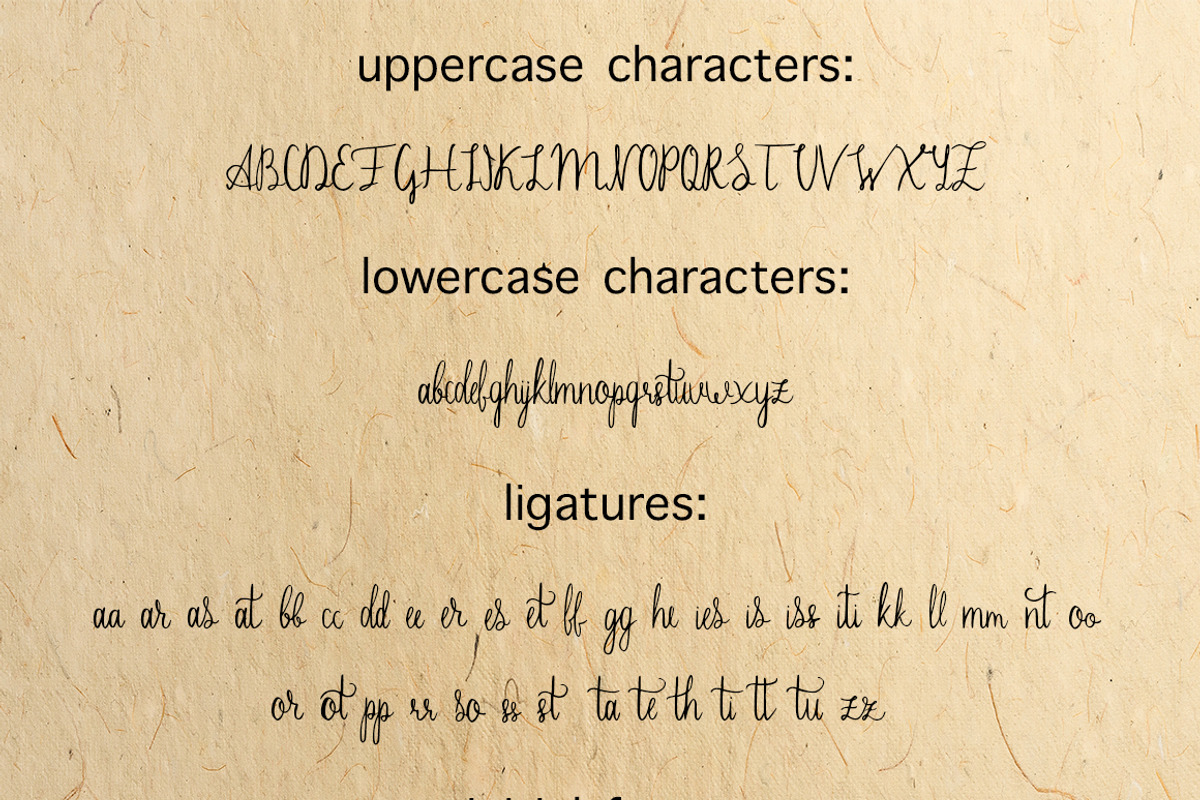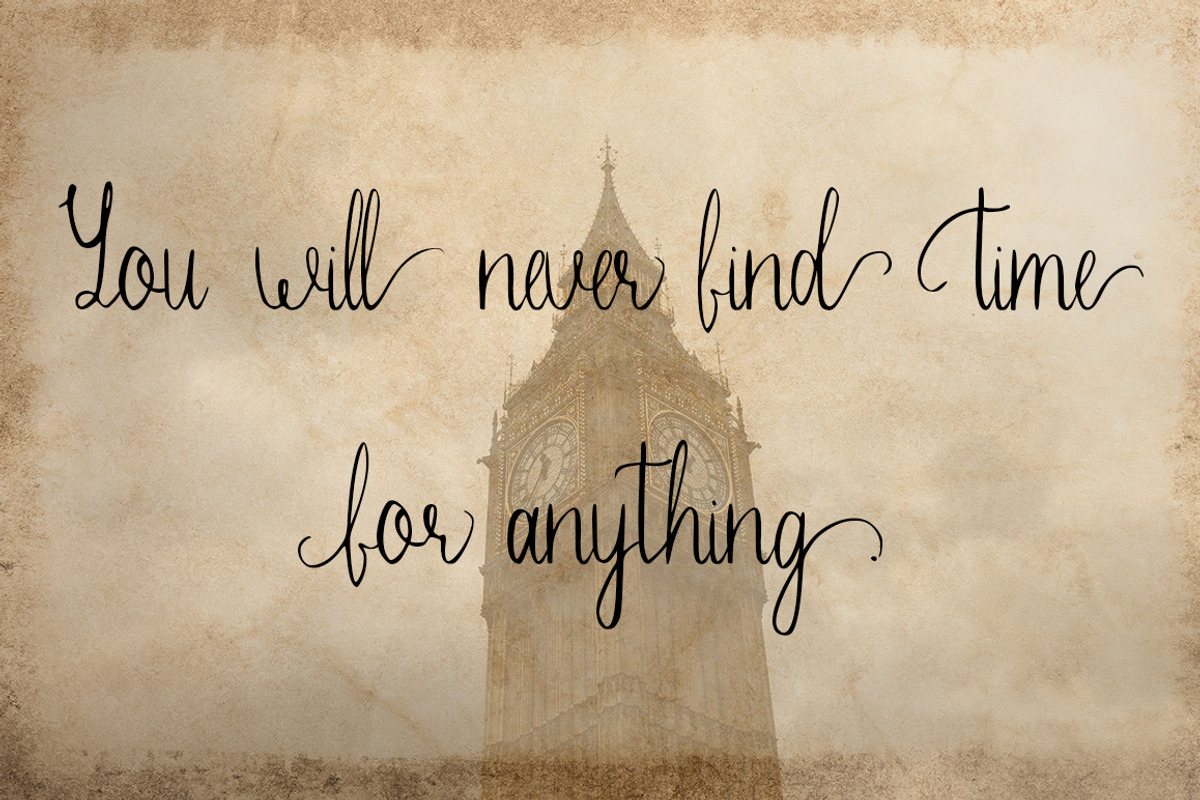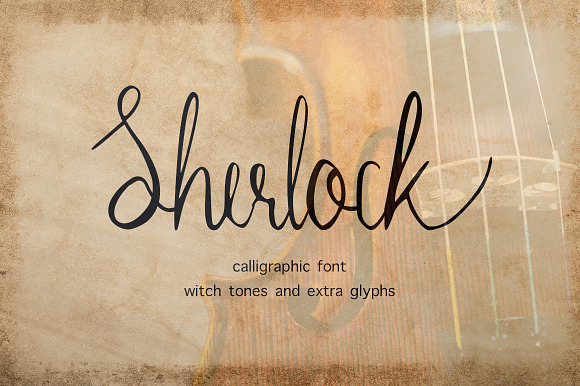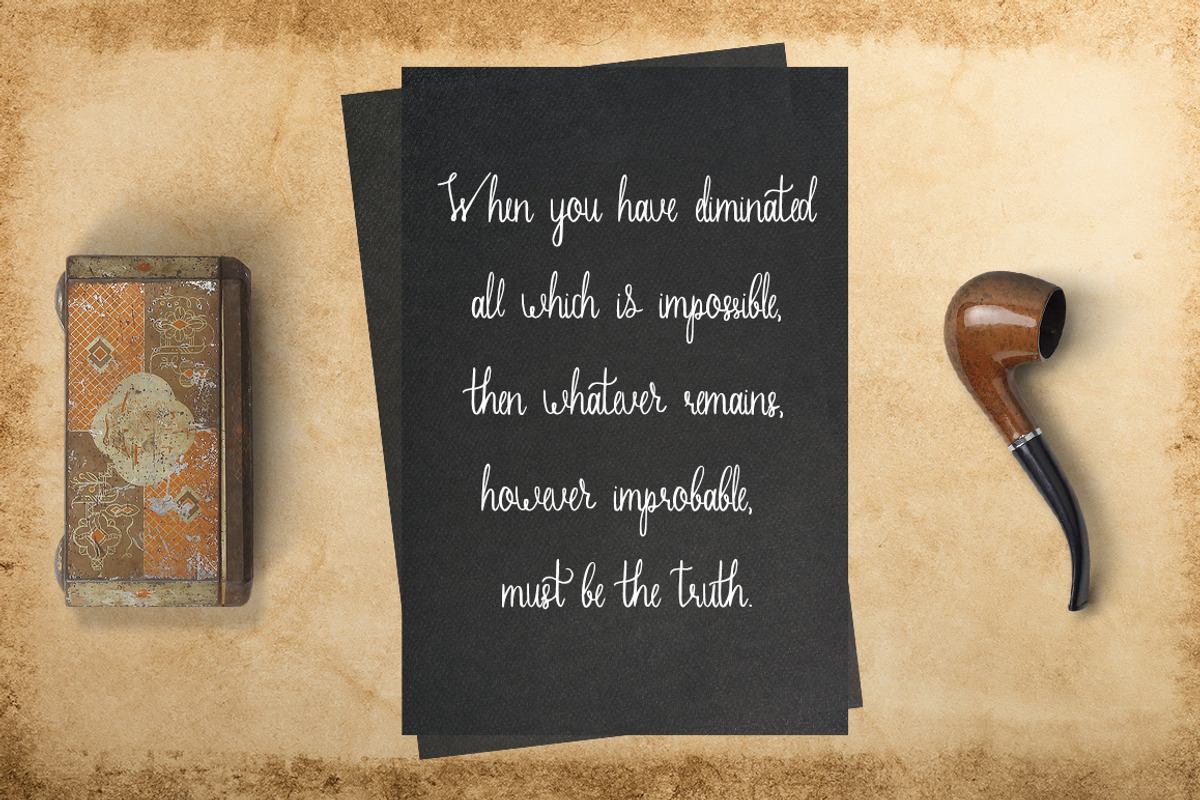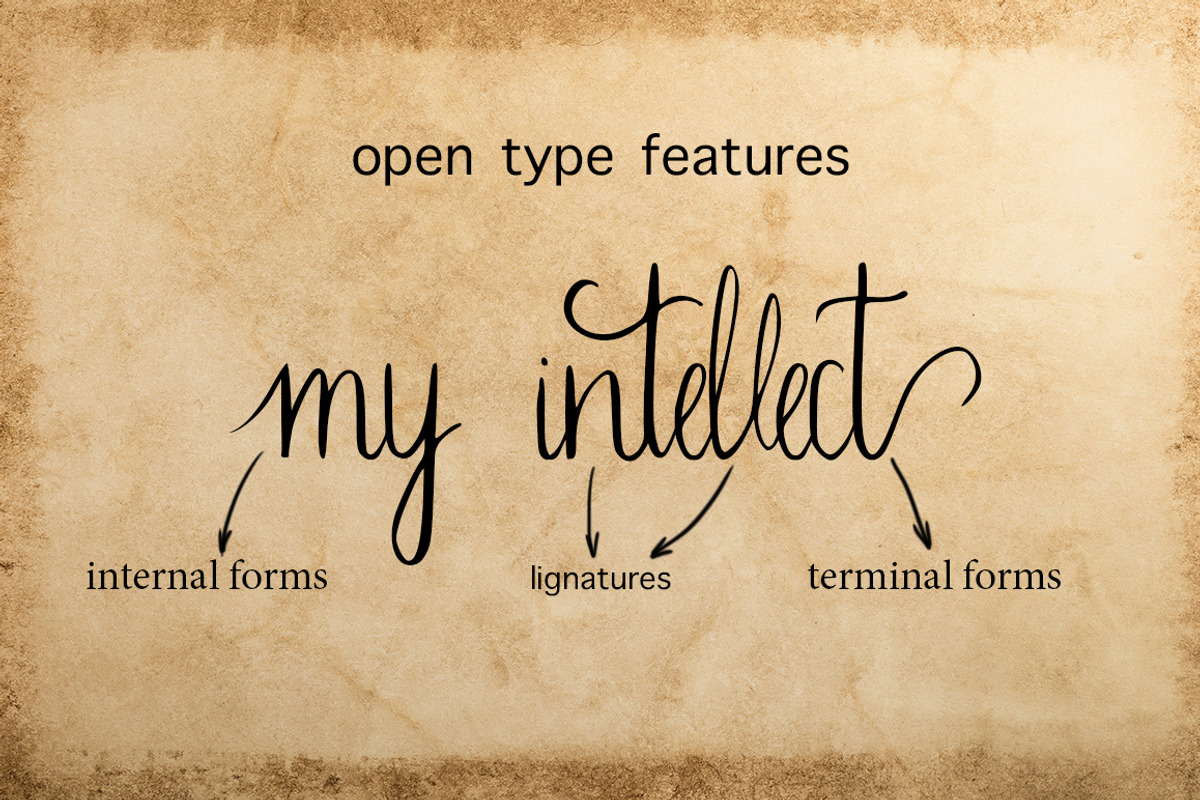
Sherlock calligraphy script font
I’m pleased to introduce you Sherlock - a cool calligraphic font. Sophisticated lines and swashes make this font perfect choice for wedding stationary, all kinds of invitations and branding design.
Sherlock has tons of open type features including legnature lowercase, as well as initial & terminal forms of all lowercase letters (check previews to see them all!)
Why Sherlock calligraphy script font is worth a look
Sherlock calligraphy script font by Gennadi Digital Studio fits naturally into Branding, posters, packaging, typography.